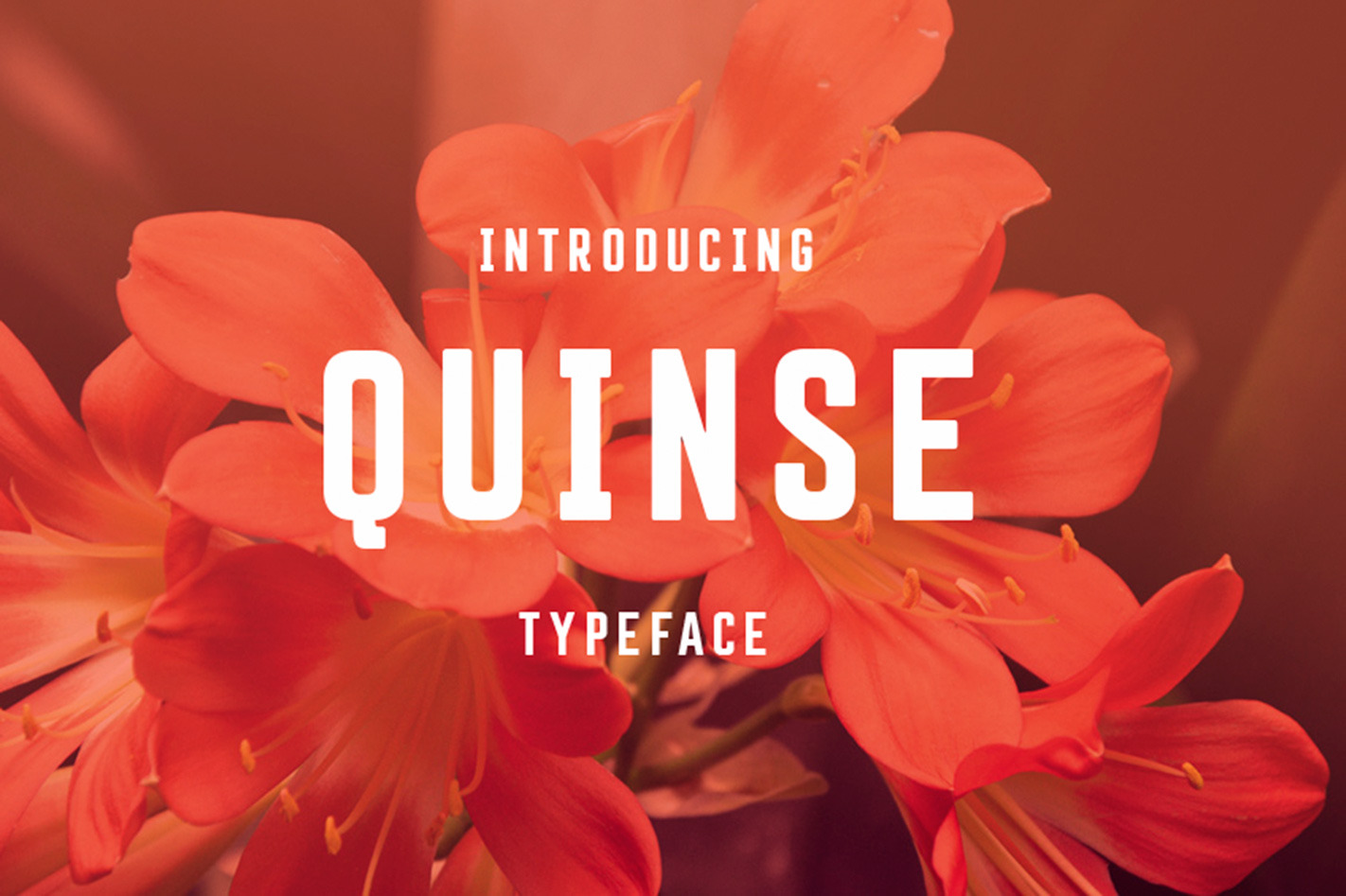
Quinse Font
Quinse Typeface
Introducing a new display font by Dave Ansett. Inspired by the style and character of French directional signage, Quinse is a confident and bold signature font for brandmark design, packaging design, headlines for publications, print and digital campaigns as well as retail point of sale and of-course signage.
- Caps and Lower Case
- Symbols and Punctuation
- More than 75 Glyphs
Quinse Extras: